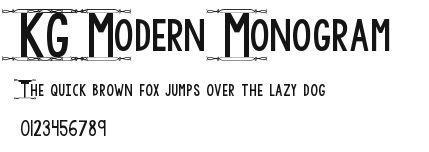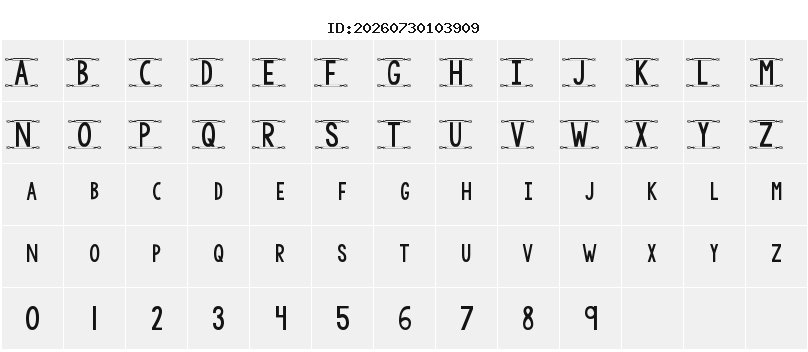
KG Modern Monogram Preview
• Font Name: KG Modern Monogram
• Full Font Name: KG Modern Monogram
• Designer: Kimberly Geswein
About KG Modern Monogram.ttf
KG Modern Monogram.ttf is a modern, elegant sans-serif font designed for ultimate readability and visual harmony. Perfect for branding, headlines, web design, and print materials.